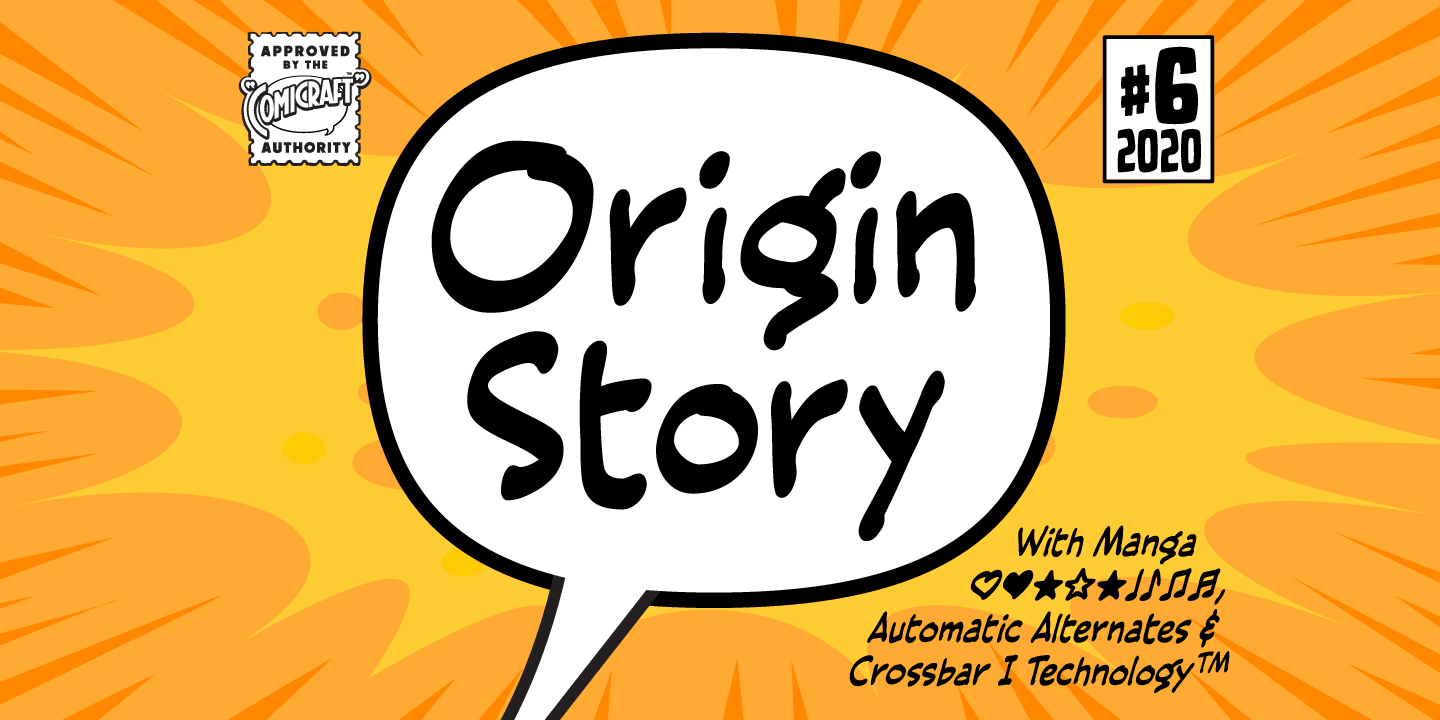
Origin Story Font Free Download is a bold and expressive display typeface perfect for branding, posters, headlines, packaging, and editorial design. Its strong lines and vintage-inspired style give your projects a storytelling vibe that captivates the audience.
What makes this font so exciting is its ability to combine retro charm with modern aesthetics, creating a dynamic and memorable visual impact. Origin Story Font brings energy and authenticity to your designs, making every message feel personal and powerful.
Origin Story Font includes multiple weights like Regular and Bold, offering designers versatile options to craft engaging and hierarchical typography.
Give your projects a narrative edge with the captivating style of Origin Story Font Free Download, and let your designs tell a story that resonates.